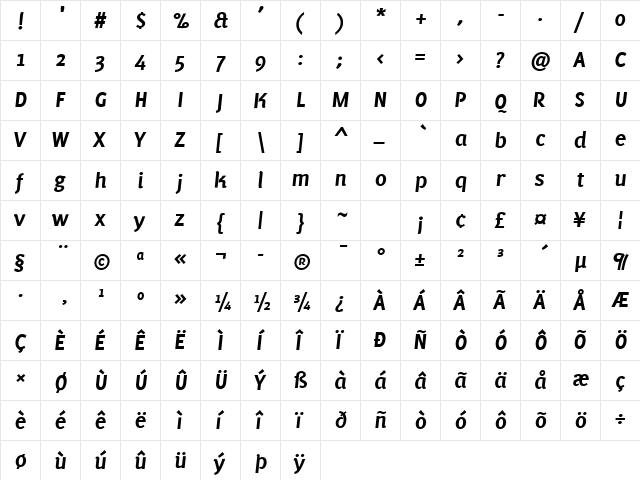
PF Muse Bold Italic
| Designer | Vangelis Karageorgos |
Design Context for PF Muse Typeface
PF Muse offers clean, dependable letterforms without strong stylistic allegiance, making it a practical choice for designers who need flexibility. The dynamic lean of this cut emphasises speed and emphasis in any layout. Its bold stroke weight gives it real presence on the page.
Pro Tip: Use PF Muse for emphasis, pull quotes, and subheadings where its slanted energy can add rhythm to the layout.